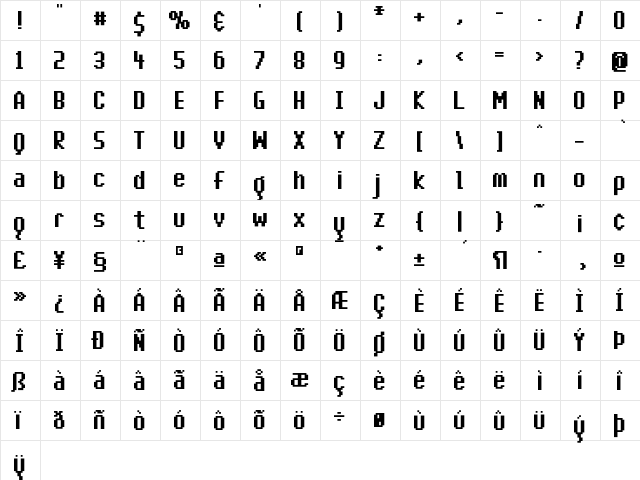
BionikaBlack Medium
Design Context for BionikaBlack Typeface
BionikaBlack takes a measured approach to typography — its balanced proportions and neutral character make it a reliable workhorse for both digital and print work.